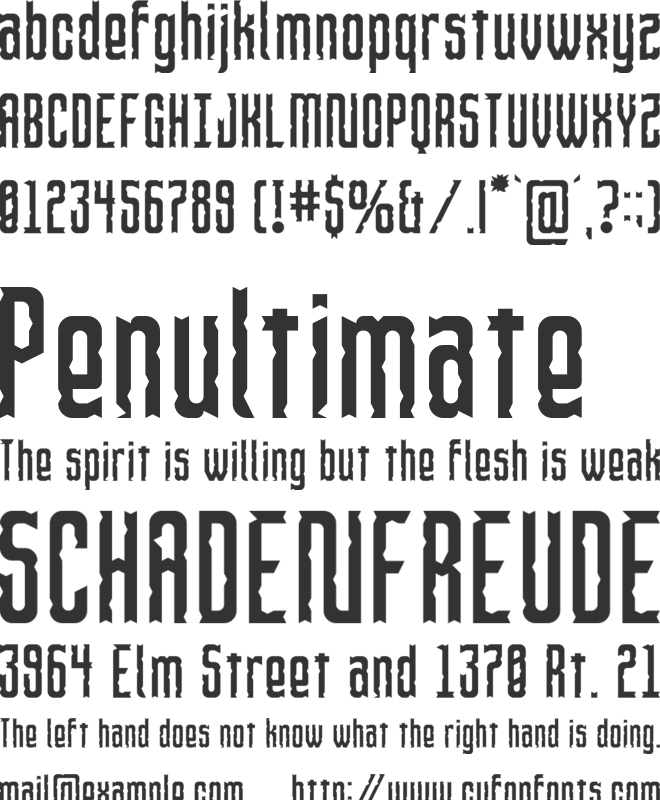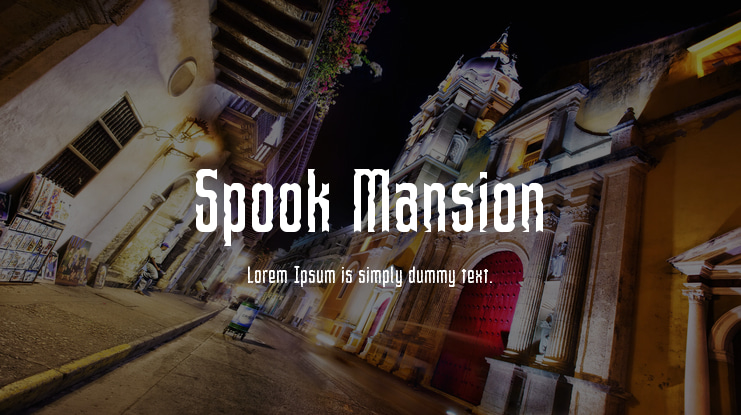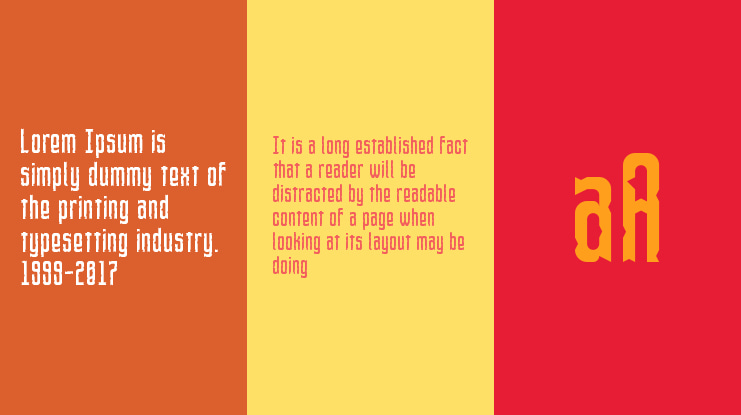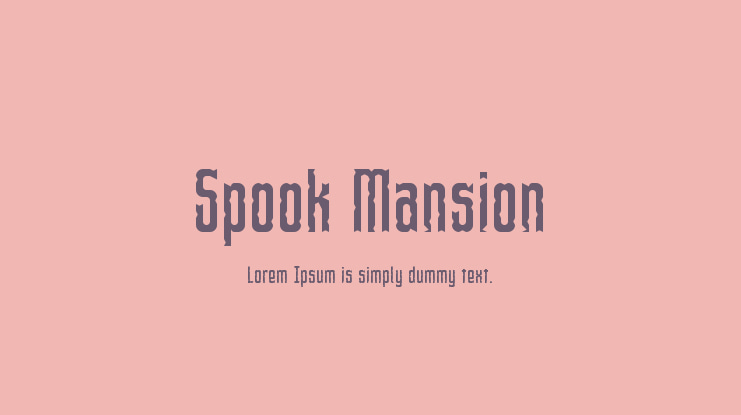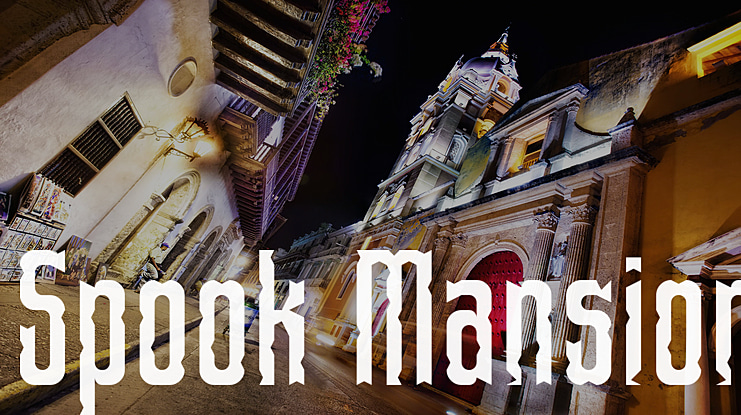
Spook Mansion Font
THE MOMENT YOU STEP INTO SPOOK MANSION, YOU REALIZE YOU DONE GOOFED UP. THE DOOR SLAMS SHUT BEHIND YOU AS SCARY PIANO MUSIC BEGINS TO WASH OVER YOU AND TERRIFYING KICK DRUM SOUNDS BEGIN TO PUMMEL YOU. WITHIN MOMENTS, YOU ARE DROWNING IN A SEA OF EERIE AMBIENCE. "WOE BETIDE THE FOOL WHO CONSPIRES TO TAKE MY RICHES!", SHOUTS A GHOSTLY VOICE SOMEWHERE BEHIND YOU. YOU TURN, BUT NOTHING'S THERE. BOO! LOL....................................................